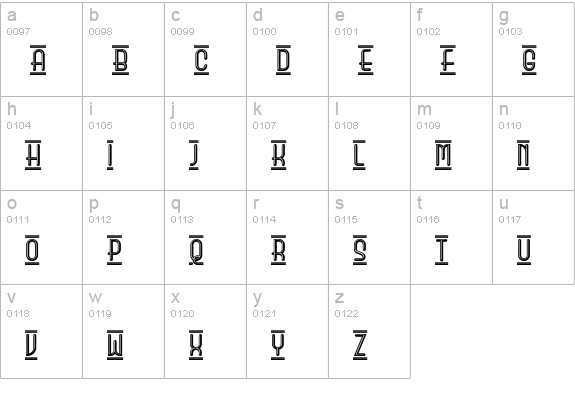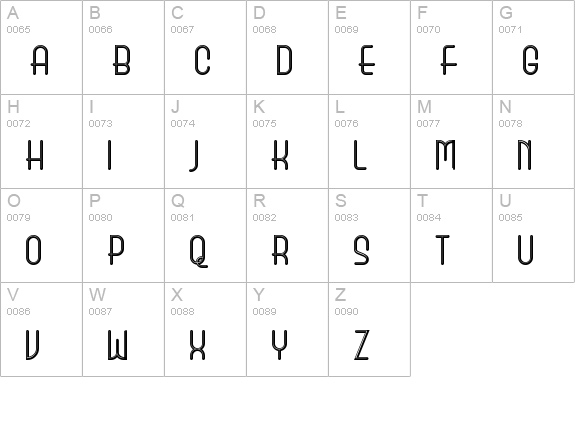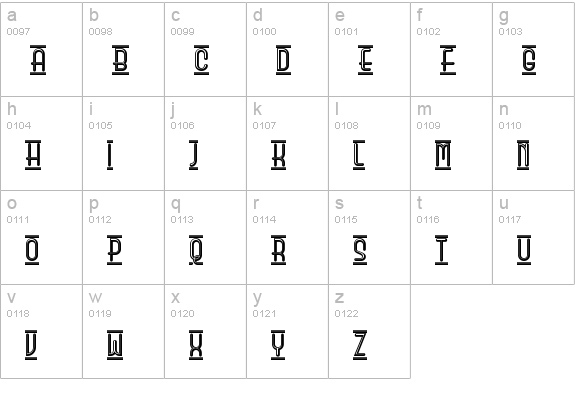
Neon Tubes font is a stunning display typeface that captures the vibrant essence of neon lights in a sleek and modern design. Its bold and eye-catching characters are perfect for adding a touch of electrifying style to your projects. The Neon Tubes font is versatile and can be used for a variety of creative purposes, from signage and logos to posters and branding. Best of all, Neon Tubes font is available for free download at FontsMarket.com. Grab this electrifying font today and watch your designs come to life with a neon glow that will captivate your audience. Embark on a journey of creativity and innovation with Neon Tubes font, where the possibilities are endless and the impact is undeniable. Let your designs shine bright with the captivating allure of Neon Tubes font.